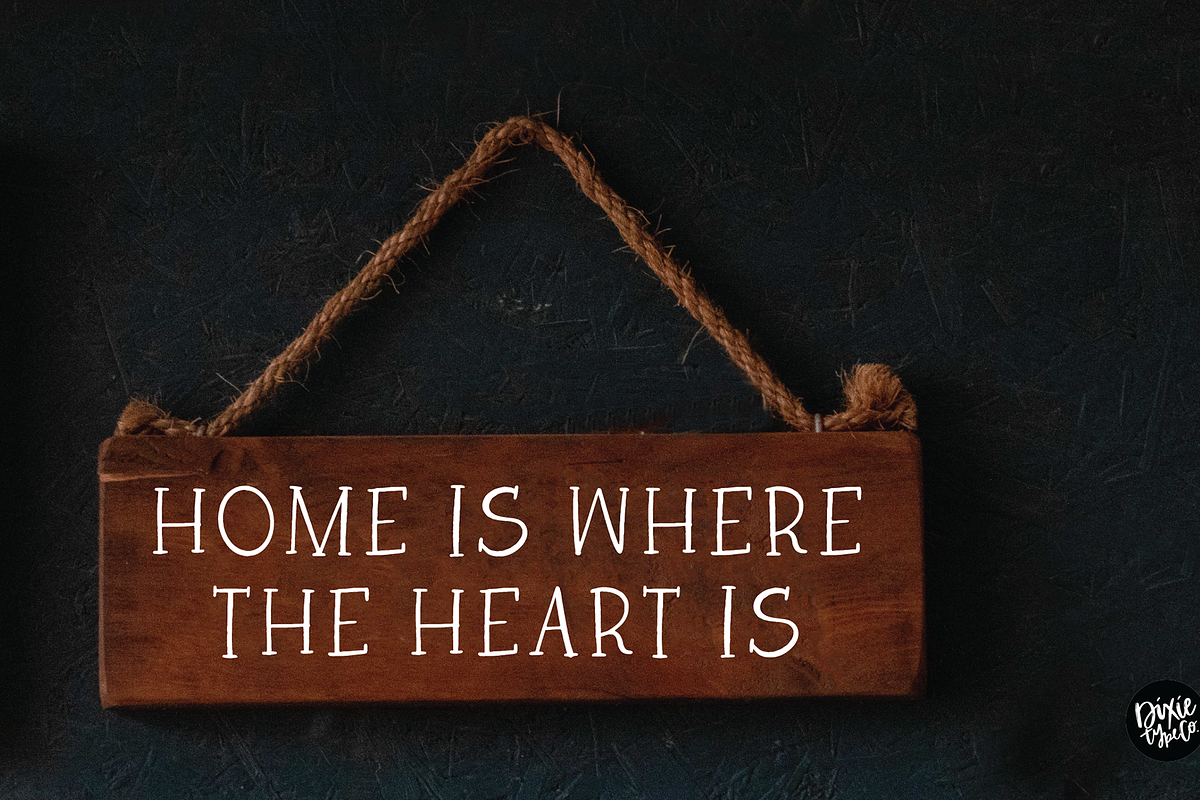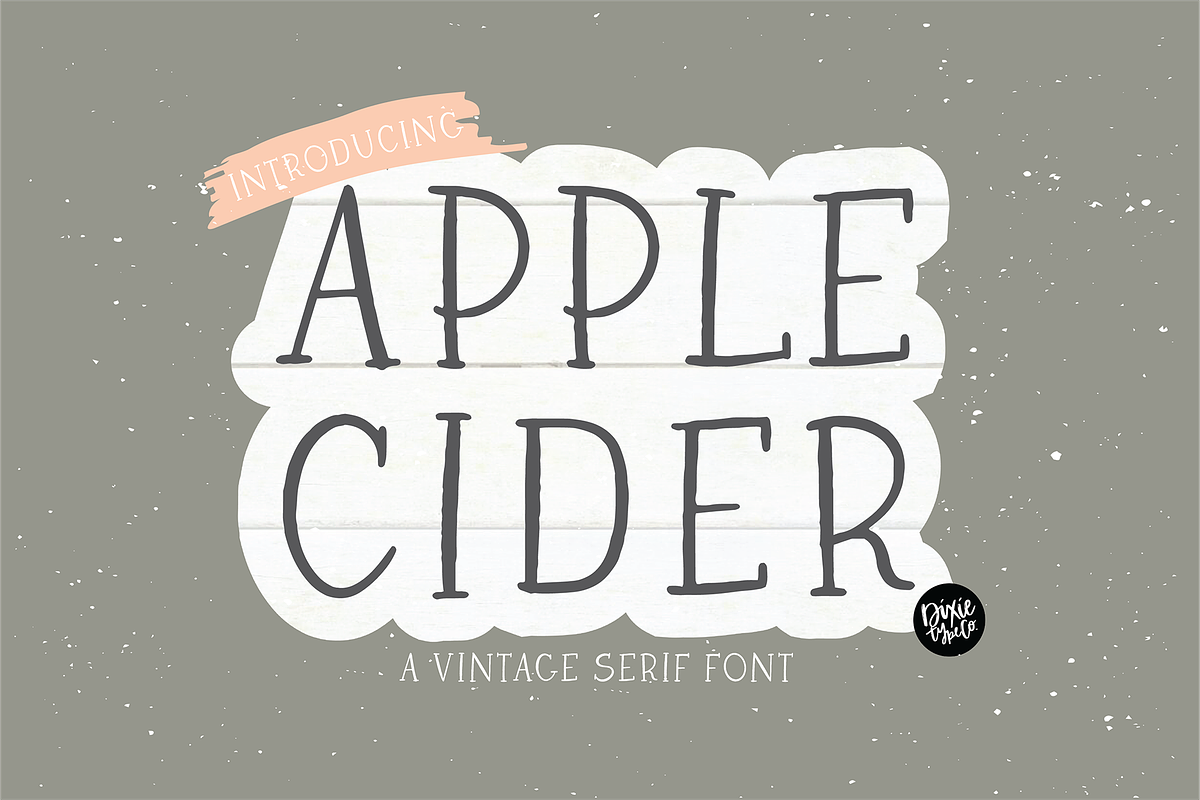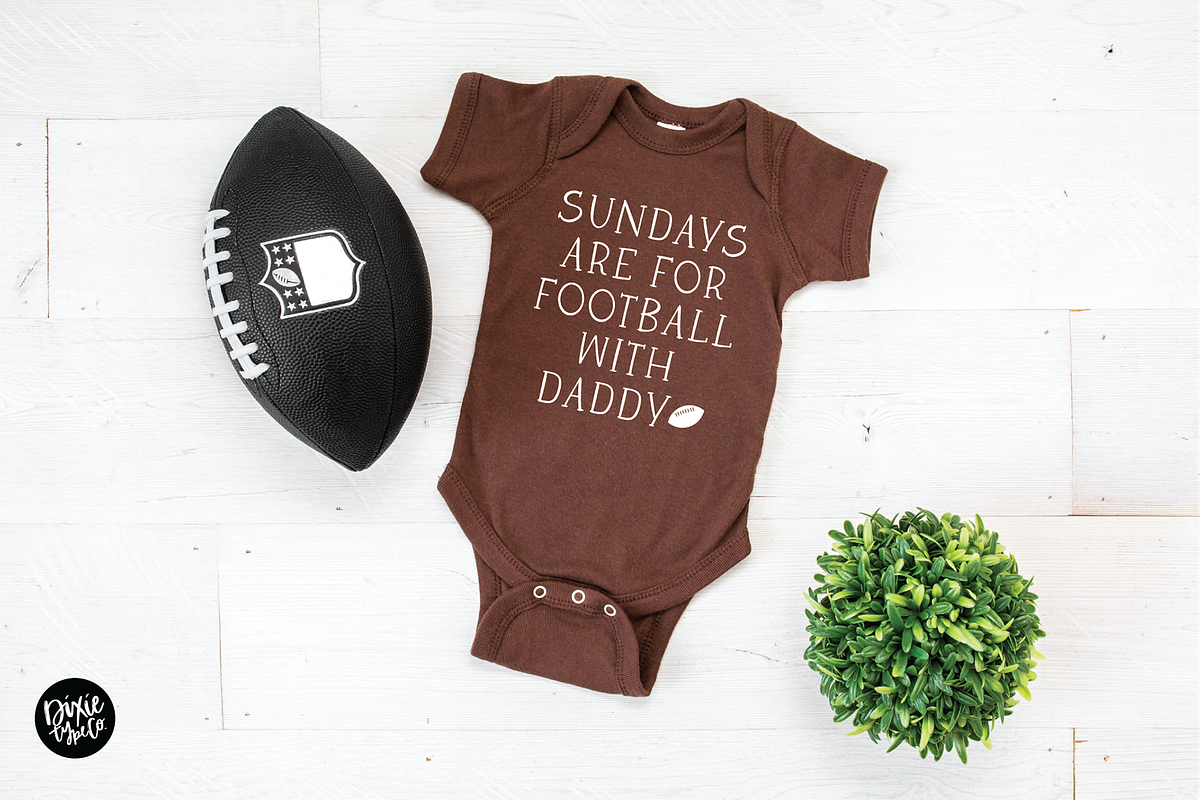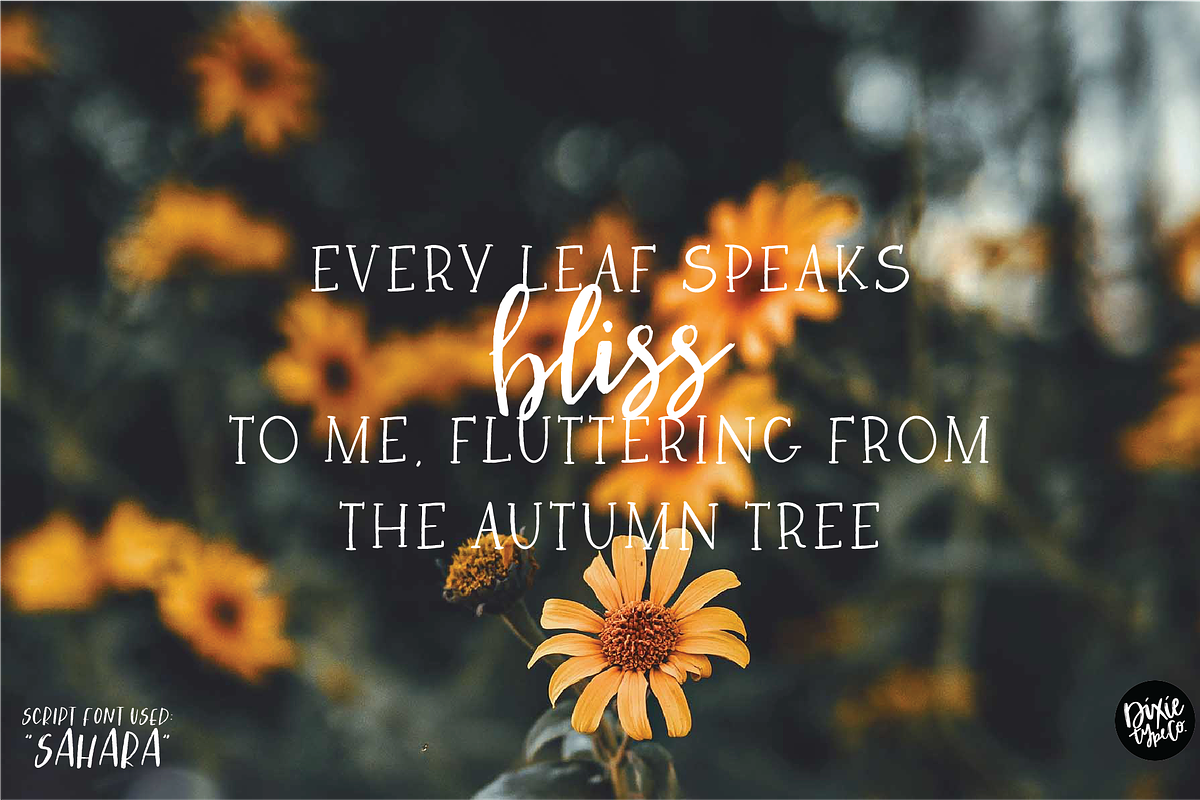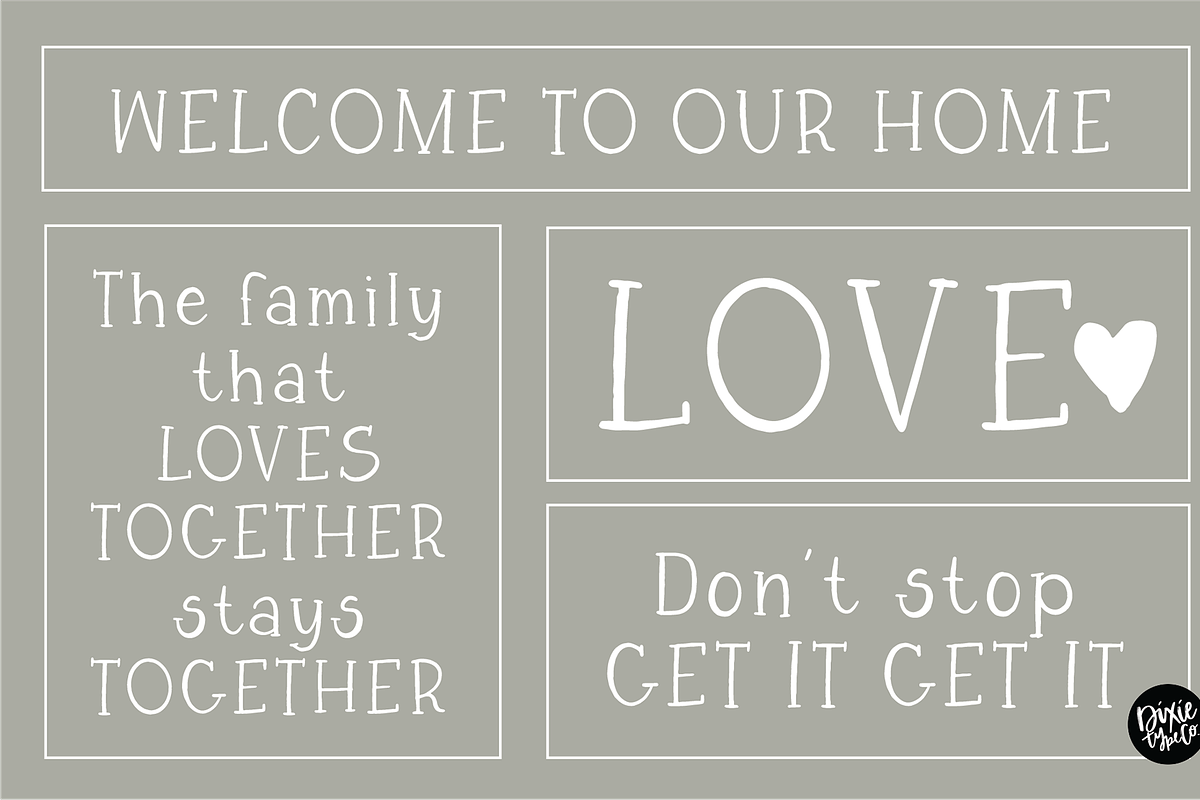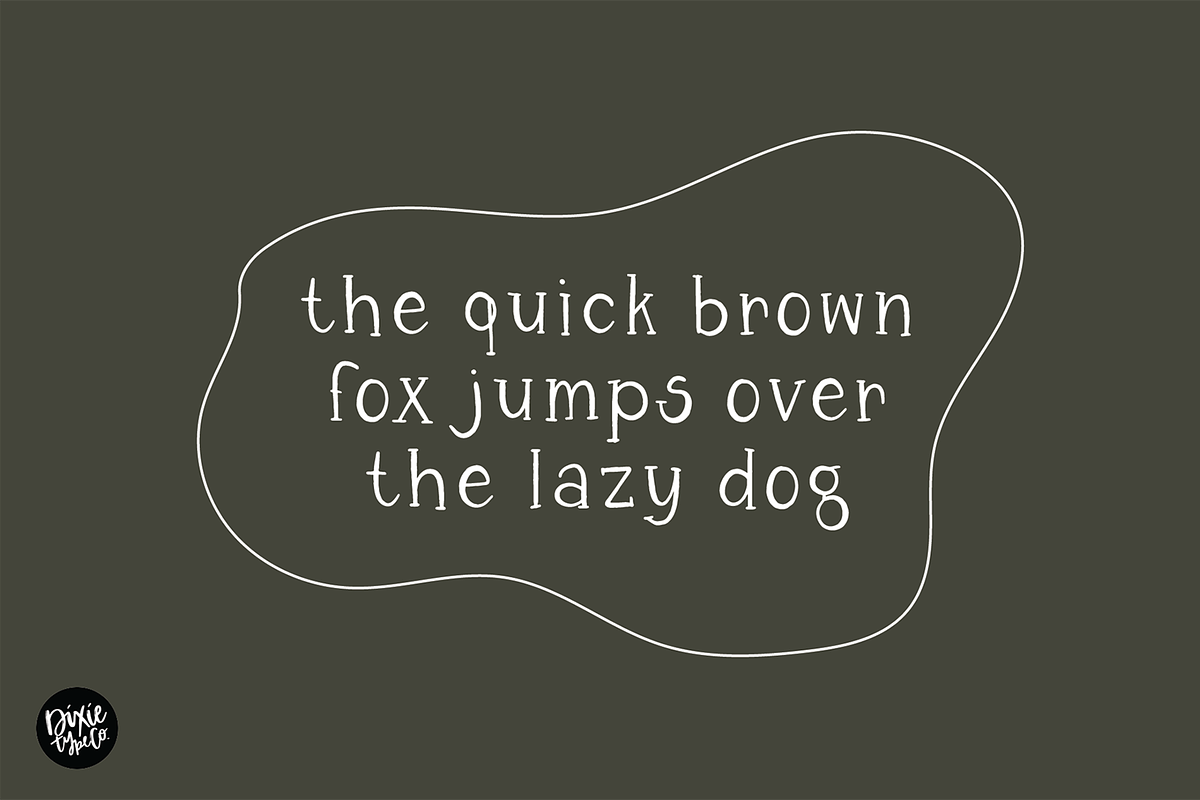
APPLE CIDER Vintage Serif Font
"Apple Cider" a vintage serif font. Perfect for signs!
{ A typographic font hand-lettered with love by Dixie Type Co. }
Apple Cider is a serif hand lettered font. It is slightly distressed to give it a rustic look. This font was made with farmhouse fall projects in mind.
Font includes: Upper and lowercase glyphs, numbers, and basic punctuation.